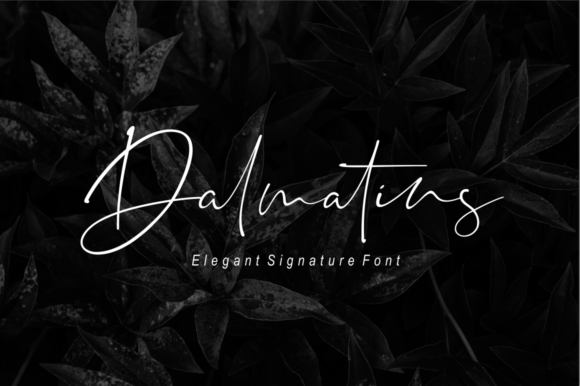
Unveil the Dalmatins Font: A Serene Journey Through Elegance and Personality
In the realm of typography, where letters dance and words come alive, there exists a font that captivates with its timeless charm and undeniable elegance: Introducing Dalmatins, a modern signature font poised to transform your designs into masterpieces. Its creators, Sronstudio, have poured their passion into crafting each letterform, resulting in a symphony of smooth curves, delicate strokes, and captivating details.
Dalmatins is not just a font; it's an experience. Its thin, elegant lines evoke the grace of flowing water, while its harmonious curves create a sense of tranquility that invites you to immerse yourself in the world of words. Whether you're crafting personal branding materials, designing business-casual projects, or seeking a touch of sophistication for your creative endeavors, Dalmatins is your perfect companion.
Step into a world where your words take center stage, adorned with the beauty of Dalmatins. Let your personal branding shine with a logo that exudes professionalism and individuality. Elevate your business-casual designs with elegant headers, eye-catching titles, and captivating text that commands attention. Transform your invitations, greeting cards, and social media posts into works of art that leave a lasting impression.
With Dalmatins, the possibilities are endless. Its versatile nature allows it to adapt seamlessly to various design styles, from classic and timeless to contemporary and edgy. Let your imagination run wild as you explore the limitless creative opportunities that await you.
Join the ranks of discerning designers who appreciate the finer details and embrace the power of typography. Experience the Dalmatins difference and unlock a world where your designs captivate, inspire, and leave an indelible mark on your audience.
Embrace the Dalmatins Font today and embark on a creative journey where elegance and personality intertwine. Let your designs bloom with sophistication, and watch as your words dance across the page, leaving a trail of beauty and inspiration.